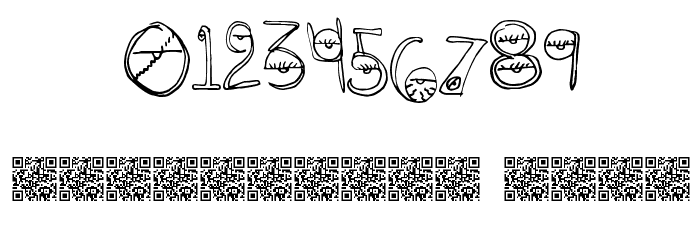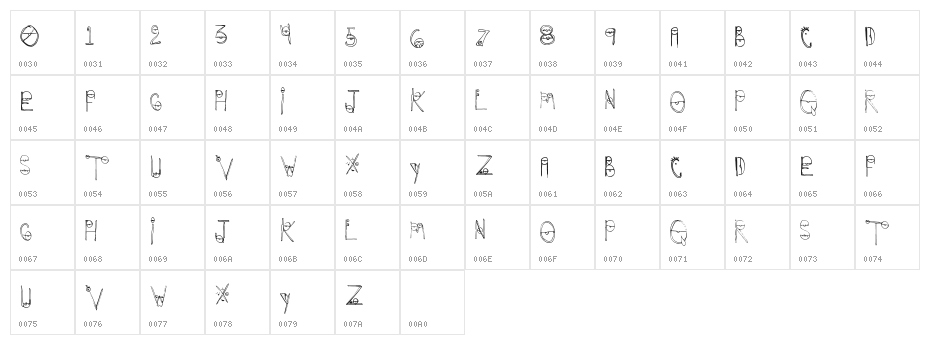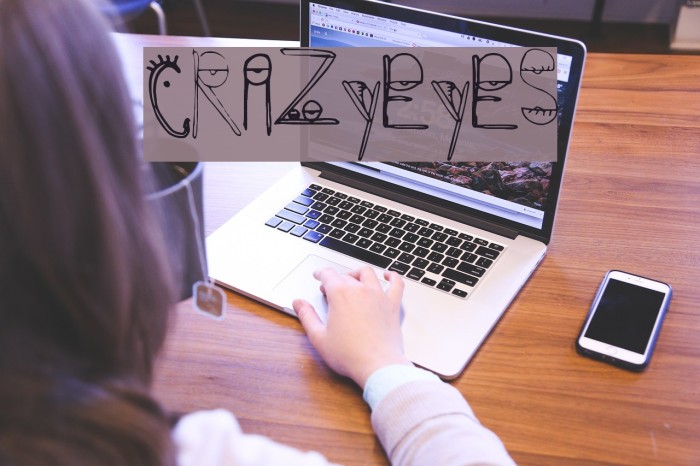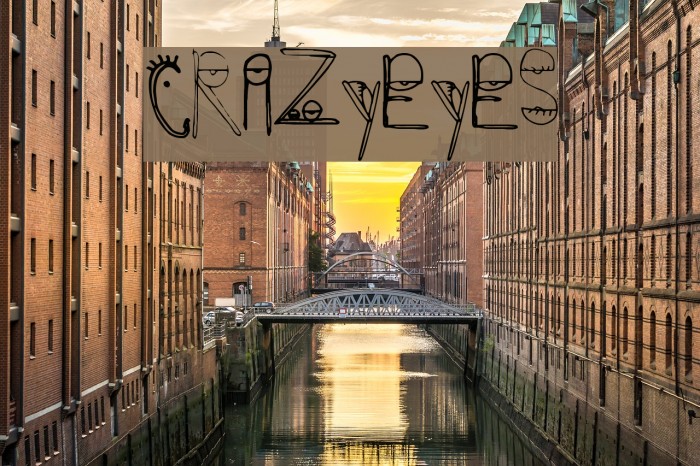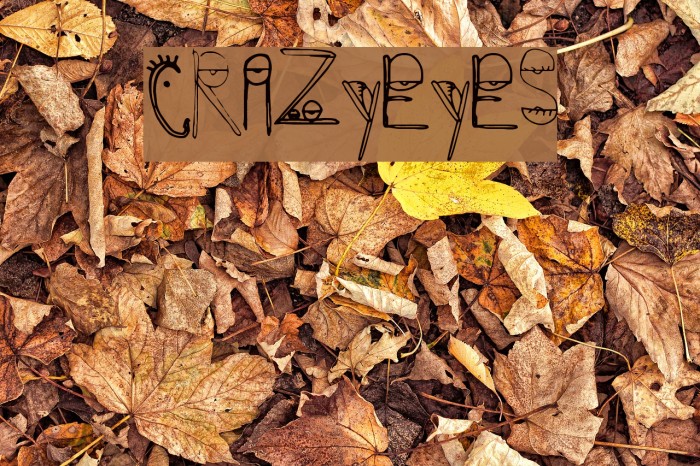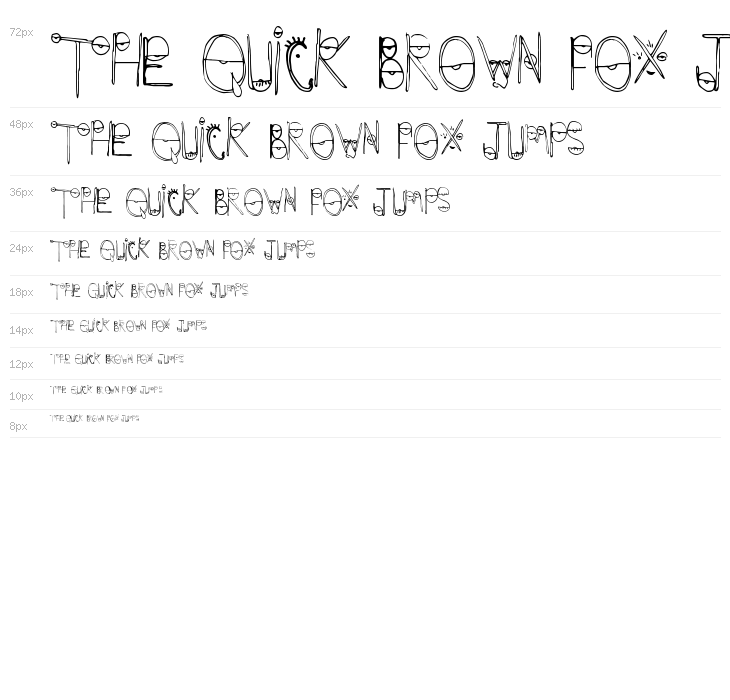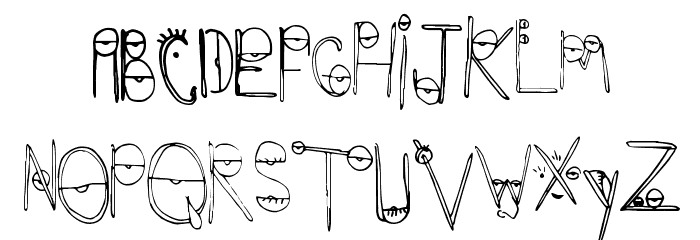
CrazyEyes Font
CrazyEyes Description
This font is a whimsical and playful typeface that features quirky, hand-drawn characters with exaggerated, cartoonish eyes. Each letter and number is uniquely designed with a sense of humor and creativity, making it stand out with its distinctive personality. The strokes are uneven and irregular, adding to the font's charm and artistic flair. This font is perfect for projects that require a fun and lighthearted touch, such as children's books, comic strips, or playful branding. The special characters are equally imaginative, maintaining the overall theme of eccentricity and amusement.
| Overall Style | Whimsical |
| Proposed Projects | Ideal for children's books, comic strips, playful branding, and creative posters. |